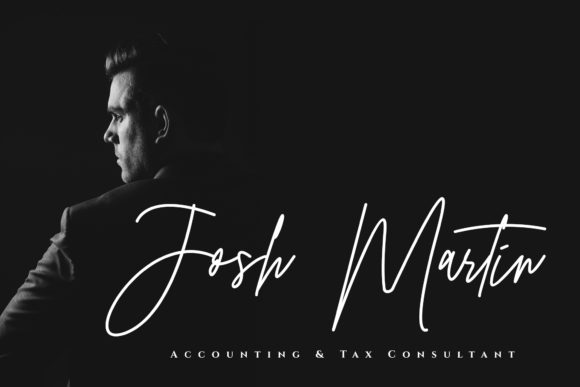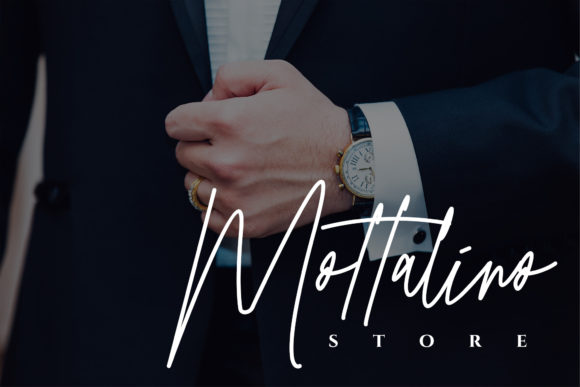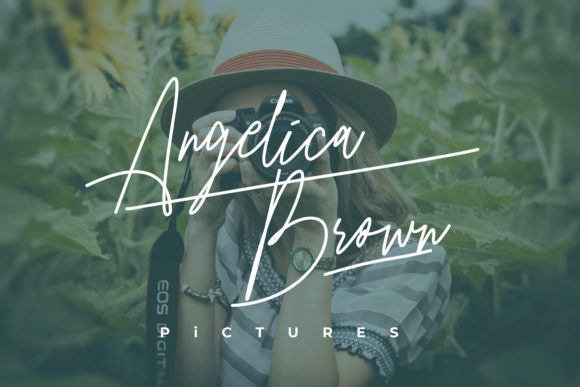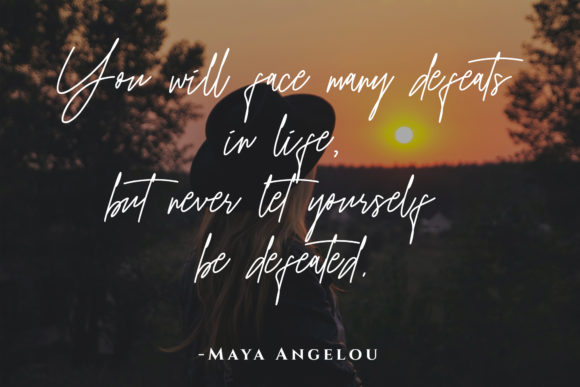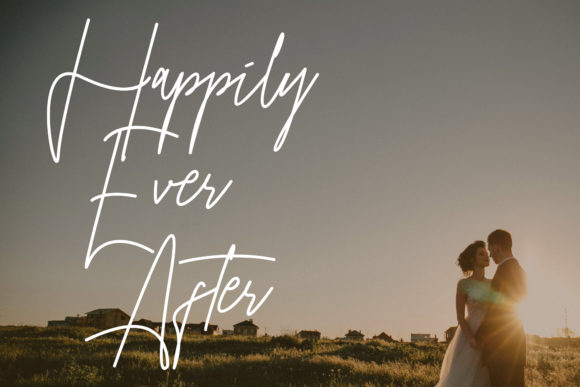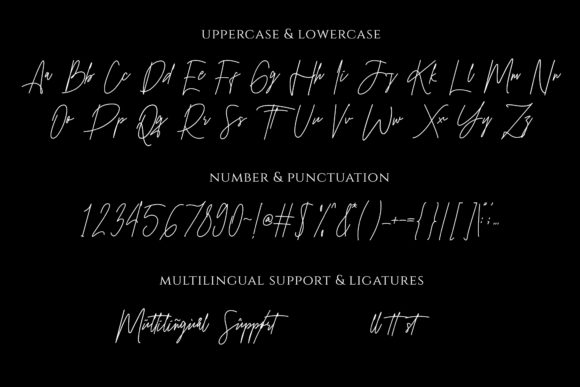
Introduction to Pakotha Font
Have you ever stared at a blank canvas, feeling the creative juices flow as you envision the perfect design? For designers, moments like these are a treasure. And what better way to bring that vision to life than with the perfect font? Introducing the Pakotha Font, a flowing handwritten masterpiece that will elevate your designs to new heights.
With its elegant touch and timeless style, the Pakotha Font is a valuable addition to any designer’s toolkit. Perfect for a wide range of creative projects, from elegant invitations to modern logos, this font is sure to impress. And with its free download option, you can access this high-quality design resource without breaking the bank.
Whether you’re working on a project with a transparent background or need a font that can stand on its own, the Pakotha Font is the perfect choice. Its PUA encoded features allow for easy access to all glyphs and swashes, making it a breeze to customize and add that extra touch of elegance to your designs.
Key Features of Pakotha Font
- Pakotha Font offers a transparent background, making it ideal for use on various backgrounds and designs.
- The font is available in a single weight, making it suitable for use in a variety of applications, from logos to body text.
- Designed with a unique and creative style, Pakotha Font is perfect for adding a touch of personality to any project.
Honest Review: Pakotha Font
As a designer, I’m always on the lookout for high-quality design resources that can elevate my creative projects. Recently, I stumbled upon the Pakotha Font, and I’m excited to share my honest review with you.
- ✨ Unique and creative design: The Pakotha Font has a distinct style that sets it apart from other fonts. Its quirky and playful nature makes it perfect for projects that need a bit of whimsy.
Any limitations:
- ⚠️ Limited character set: The font only includes a limited character set, which may not be ideal for projects that require a wide range of characters.
- ⚠️ Not suitable for professional publishing: Due to its playful nature, the Pakotha Font may not be suitable for professional publishing or formal documents.
Overall, I’m impressed with the Pakotha Font’s unique design and high quality. While it has some limitations, it’s an excellent resource for designers working on creative projects. Whether you’re designing a logo, brochure, or social media graphics, the Pakotha Font is definitely worth checking out.
Tips for Getting the Most Out of Pakotha Font
For the best results, use the Pakotha Font with a high-quality image or design element. You can also experiment with different font sizes and colors to create a unique look.
The Pakotha Font is perfect for creative projects such as: